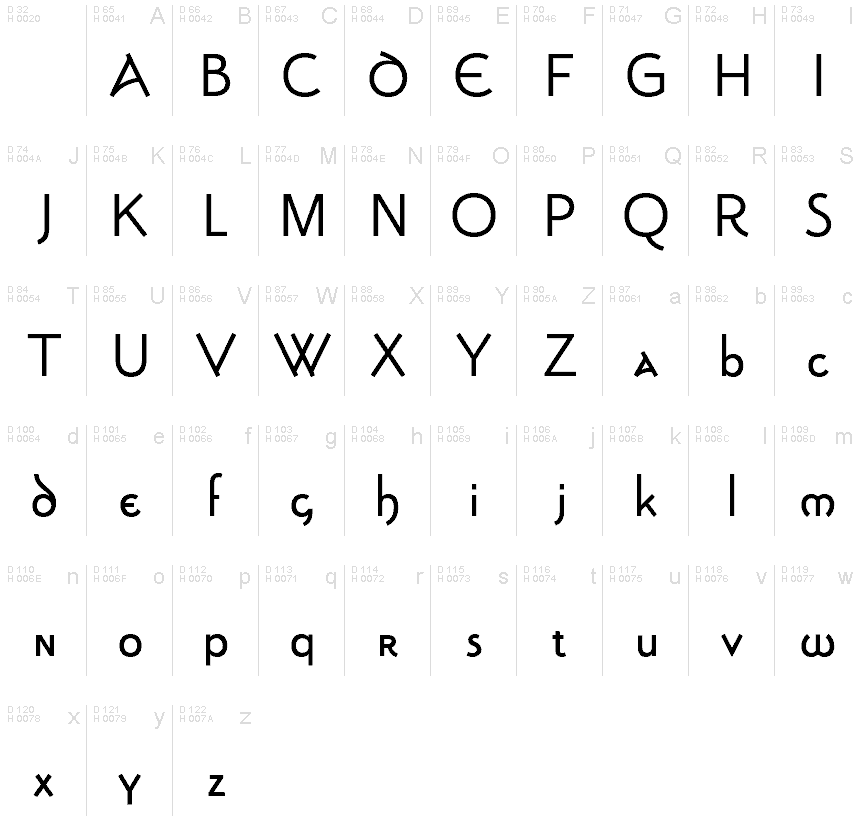
CS Spears font by Craft Supply Co. is a clean and minimalist free display font. Its modern, legible letters follow geometric principles which give the typescript a balanced appearance. Minimal corners emphasize the font’s simplicity while narrow spacing between characters creates almost a connecting calligraphy-like effect.
CS Spears brings its strong typographic form to logos, labels, branding, and packaging designs. It can be used for business cards as well as invitation cards and wedding cards. Posters that are meant to catch attention will benefit from it too! Consider it also for blog posts or picture captions on Instagram where concise information is important.